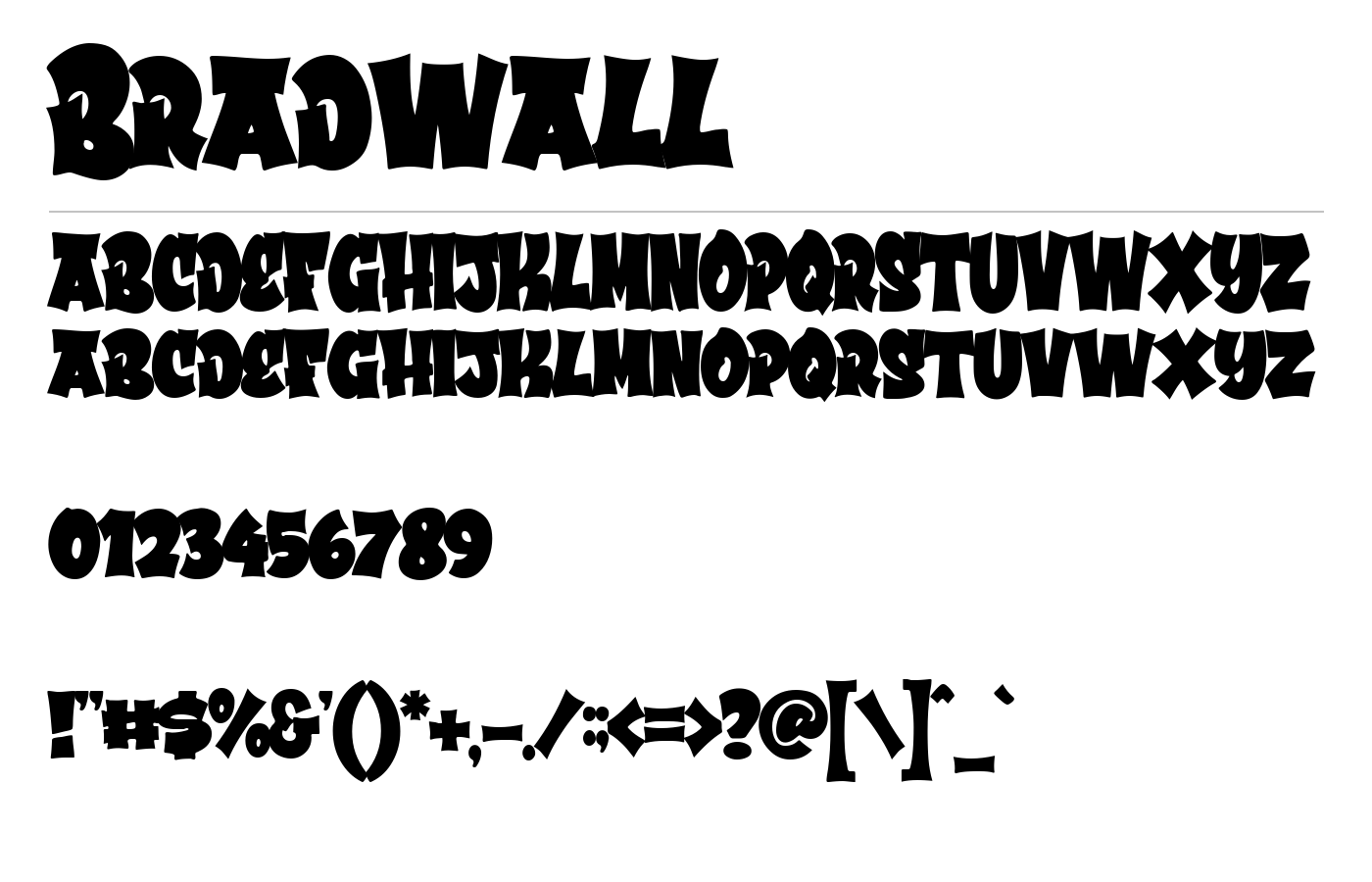
Bradwall is a bold, playful display font with thick, chunky letterforms that have a quirky, slightly irregular style, making it feel fun and informal. Its wide proportions and strong weight give it a strong visual impact, perfect for eye-catching headlines, posters, or branding that wants to convey a lively, creative personality. This font works well for projects seeking a distinctive and energetic vibe, especially in entertainment, children’s media, or casual branding.
Bradwall Font
About Bradwall Font